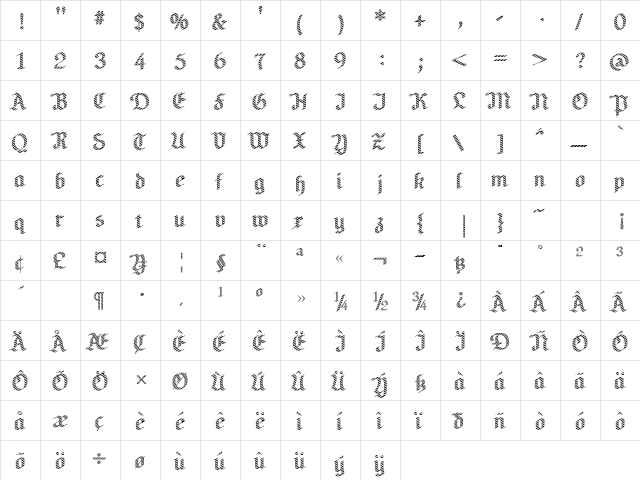
NeuAltischGray Regular
Design Context for NeuAltischGray Typeface
NeuAltischGray is a composed and adaptable typeface that performs quietly and consistently across a wide range of design contexts.